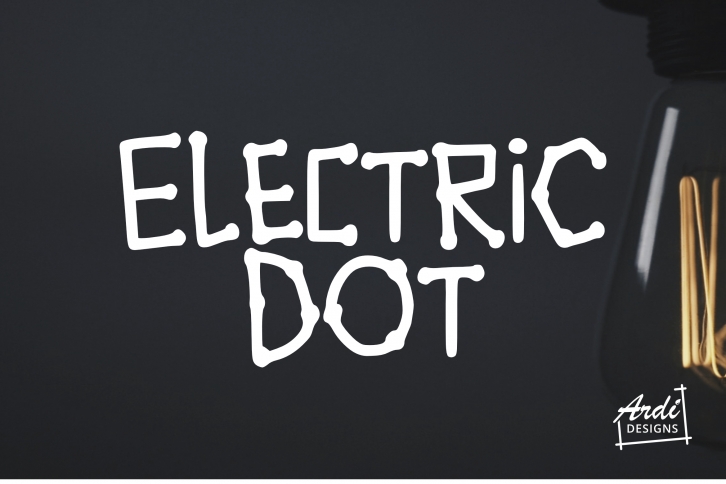
Electric Dot is a gorgeous font that was realeased on October 28, 2019. The font can be used in many style contexts and design environments. Perfect for invitations, magazines, websites, logos, and more! It was designed by ArdiDesigns and the file size is 14.47 MB. Thanks for checking out this font!